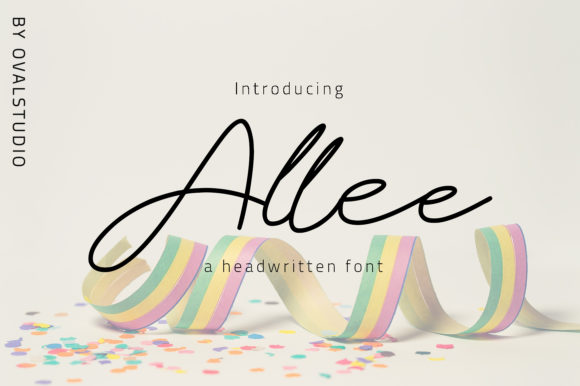
The Alle Font: A Fun and Light Script for Creative Projects
I’ll never forget the time I was working on a project for a client who wanted a fun and playful vibe. I had spent hours browsing through font libraries, but nothing seemed quite right. That was until I stumbled upon the Alle font. With its incredibly smooth style and lighthearted feel, it was the perfect fit for the project. In this article, I’ll share my experience with the Alle font, its features, and how to make the most of it in your designs.
A Personal Review of Alle Font
I’ve had the pleasure of working with the Alle font on several projects, and here’s what I think:
• ✨ The font has an incredibly smooth and elegant feel to it, making it perfect for projects that require a touch of sophistication.
• ✅ It’s highly legible, even at small font sizes, which is a huge plus for designers.
• ✅ The font comes with a range of OpenType features, including glyphs and stylistic alternates, which give you plenty of creative options.
• ⚠️ Some of the glyphs can be a bit finicky, requiring a bit of tweaking to get them to work just right.
• 🤔 The font can be a bit overused, so be mindful of how often you use it in your designs.
The Story Behind Alle Font
The Alle font was designed by a team of typographers who wanted to create a font that was both fun and elegant. Inspired by the smooth lines and curves of handwriting, the Alle font is perfect for projects that require a touch of sophistication and whimsy.
Author OvalStudio
What is the Alle font best used for? The Alle font is best used for projects that require a fun and elegant feel, such as invitations, greeting cards, and social media graphics.
Is the Alle font suitable for body text? While the Alle font is highly legible, it’s best used for headlines and titles rather than body text. For body text, a clearer font may be more suitable.